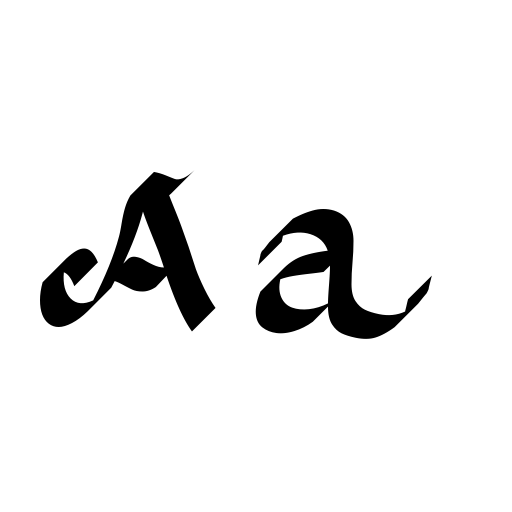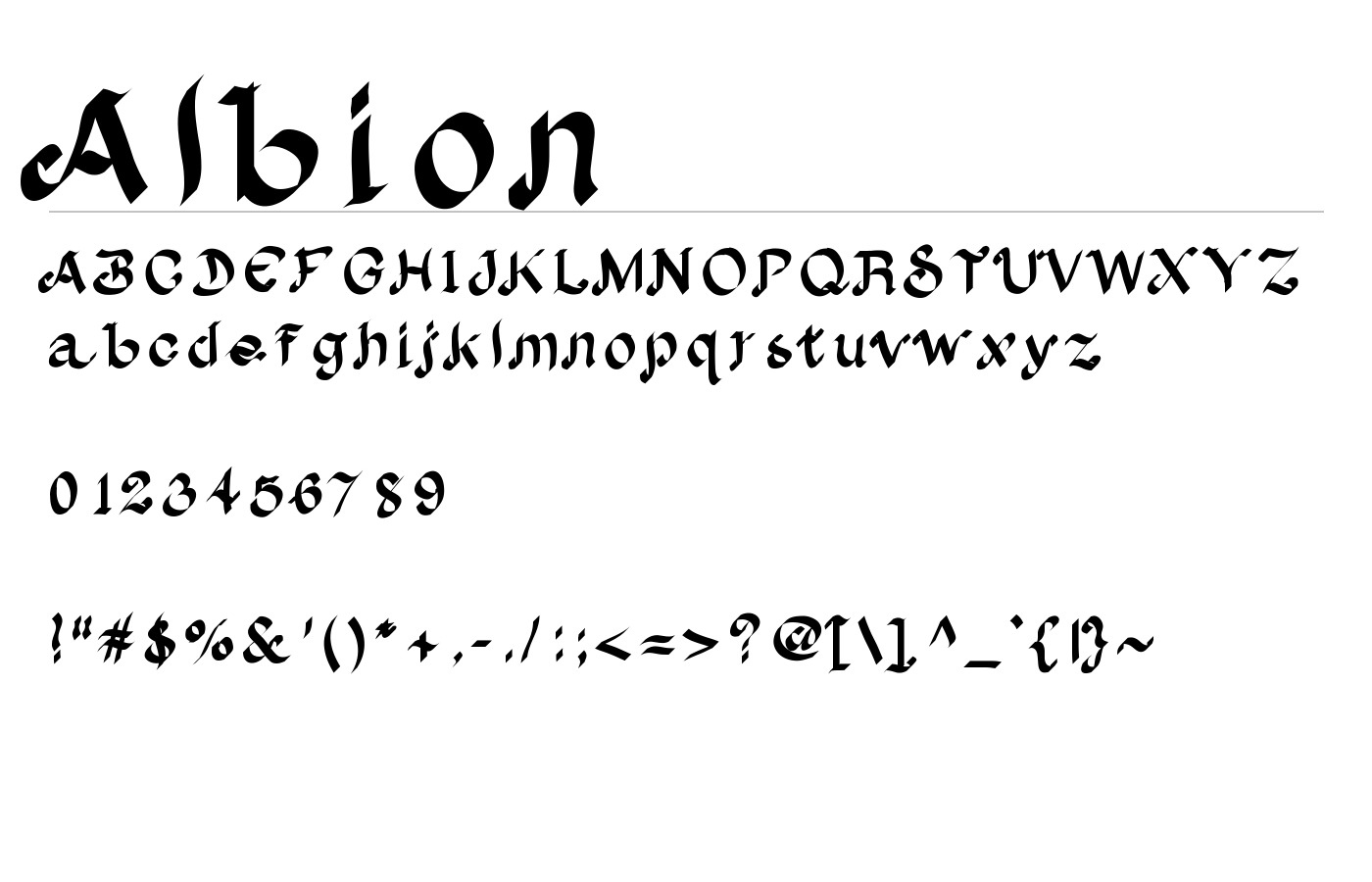
Albion is a distinctive blackletter-style serif font characterized by sharp, angular strokes and a strong, traditional Gothic influence. With its dramatic contrast, ornate letterforms, and historical feel, it conveys a sense of medieval elegance and sophistication, making it ideal for designs seeking a vintage, classic, or fantasy-inspired atmosphere. This font works particularly well for logos, headlines, posters, and branding that aim to evoke heritage, mystery, or old-world charm.
Albion Font